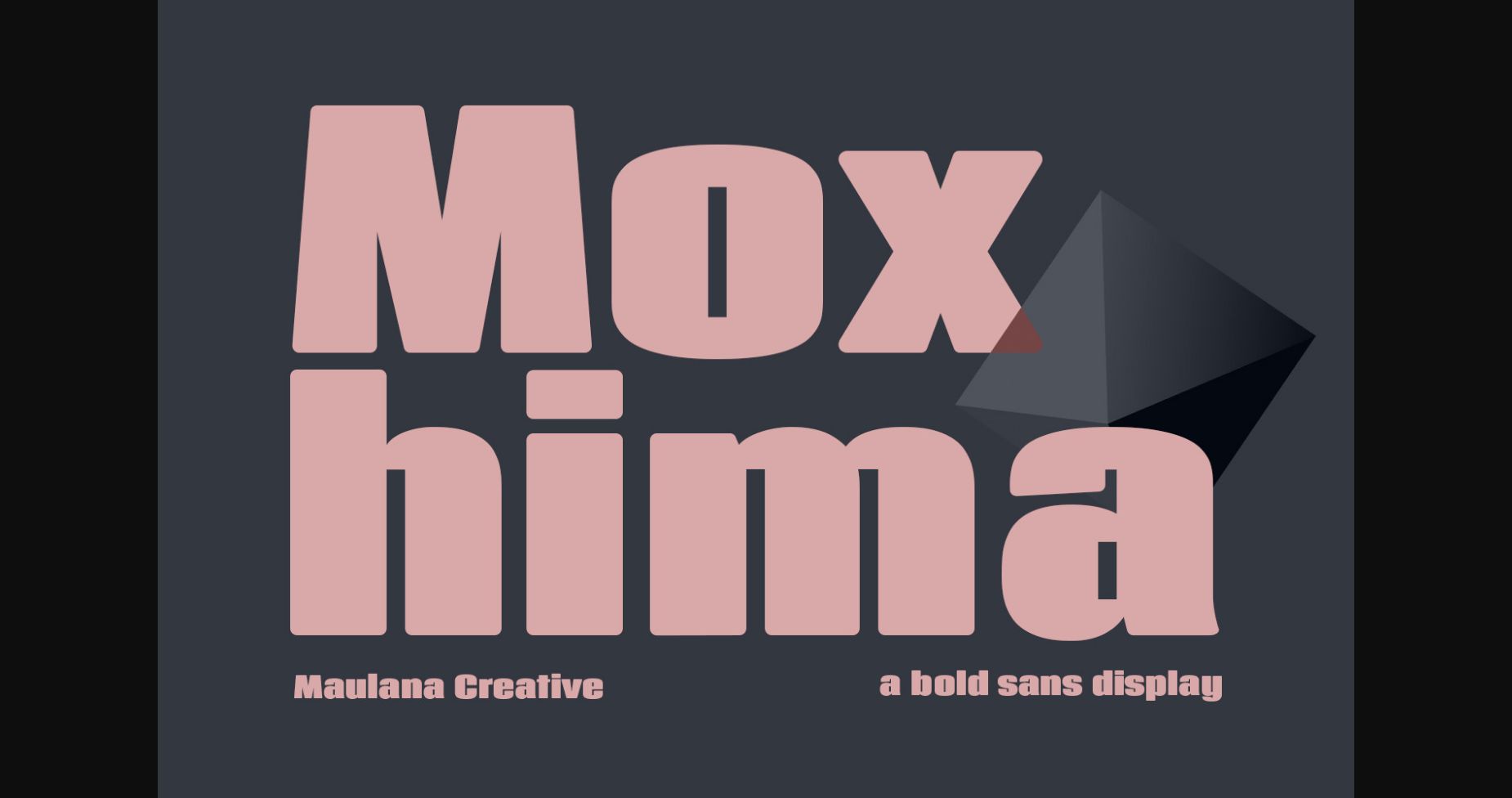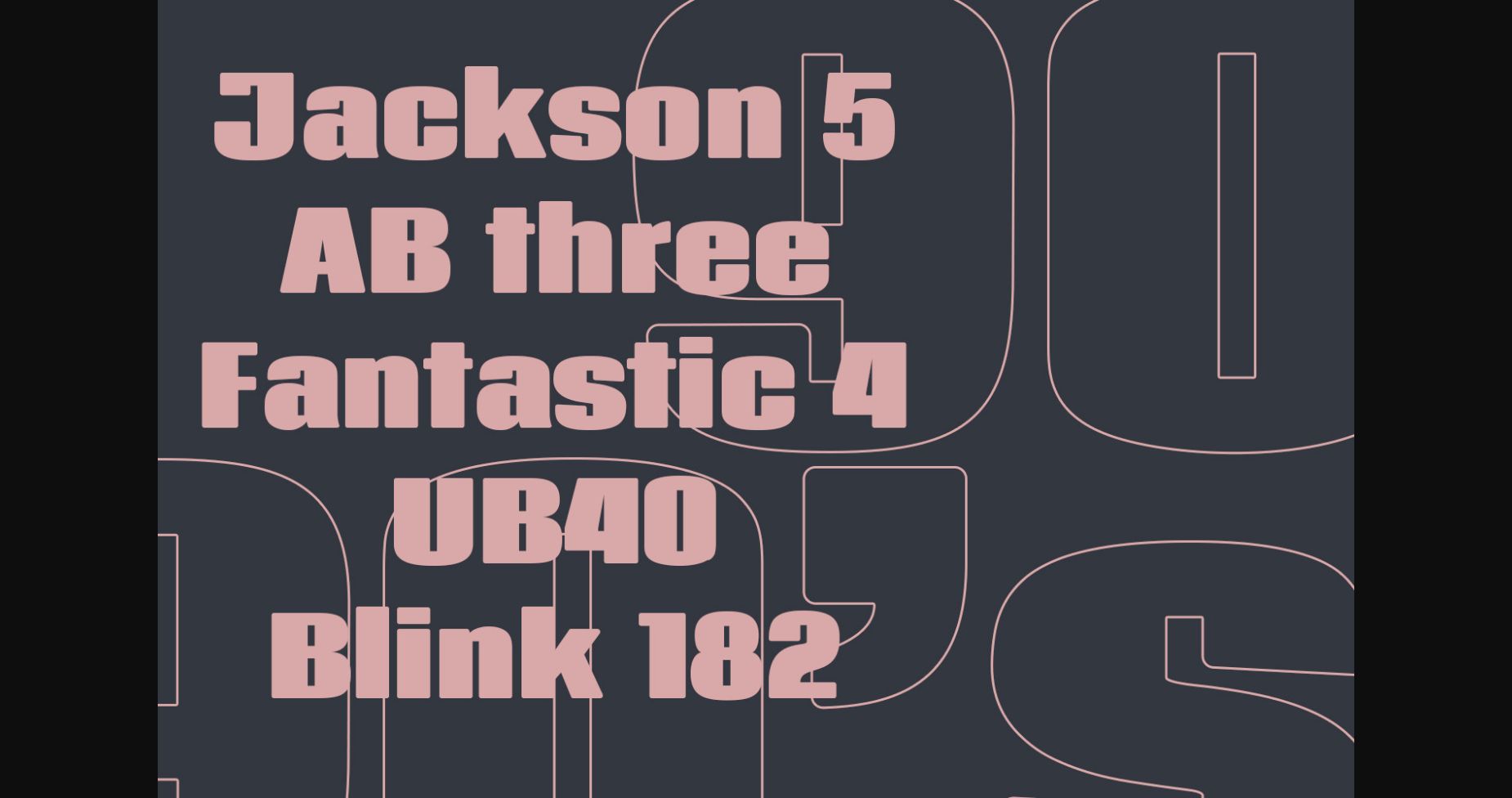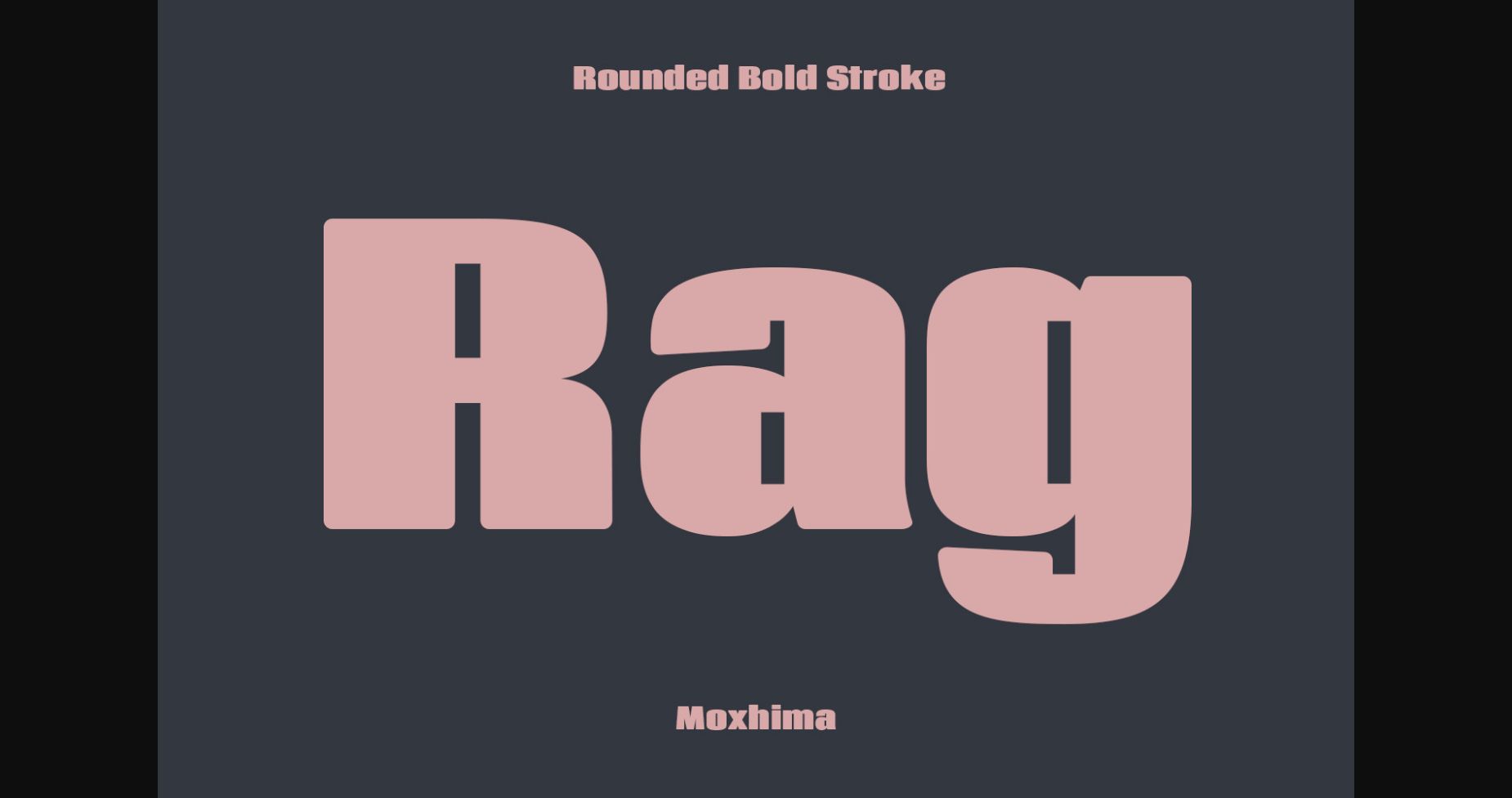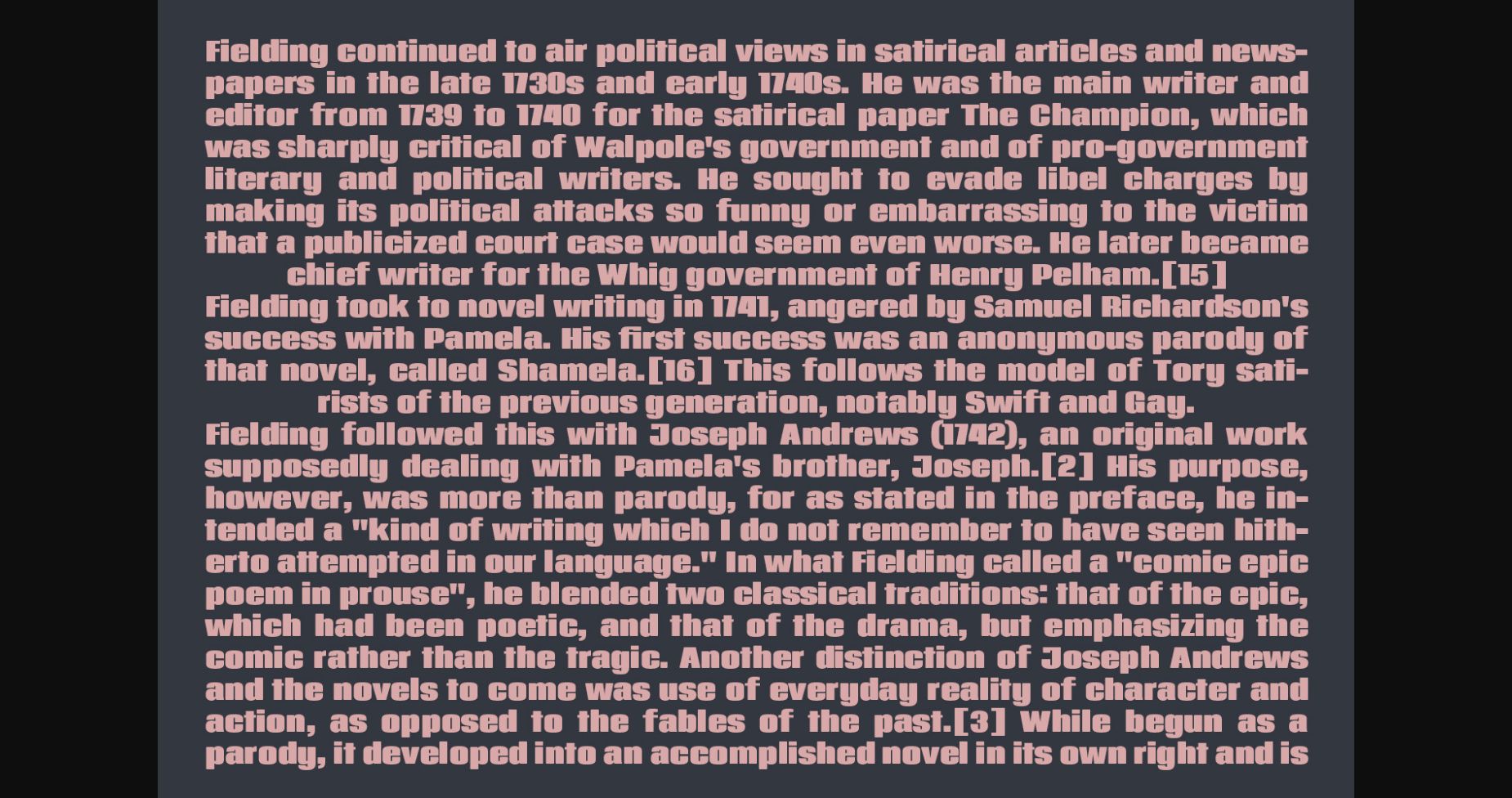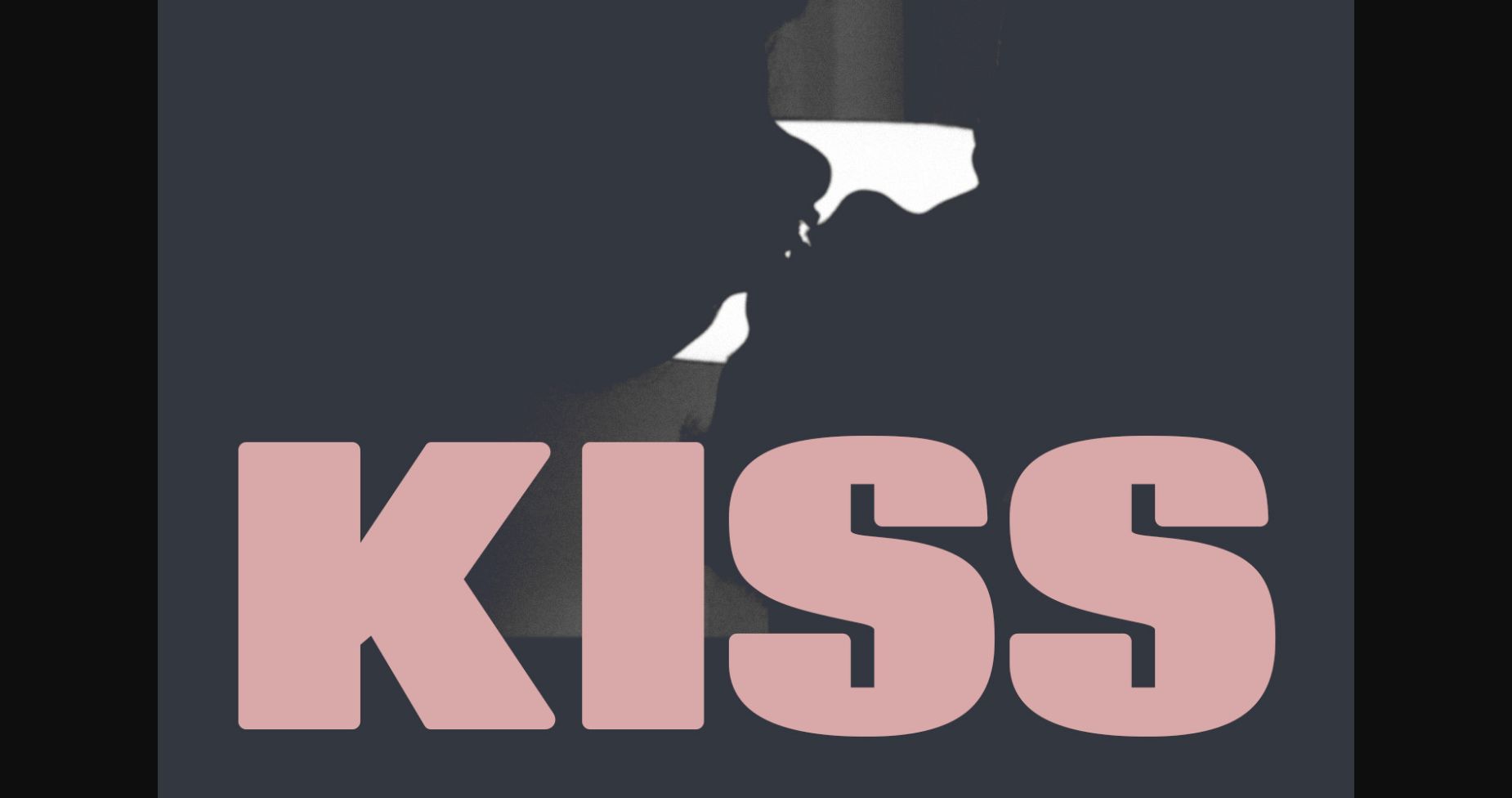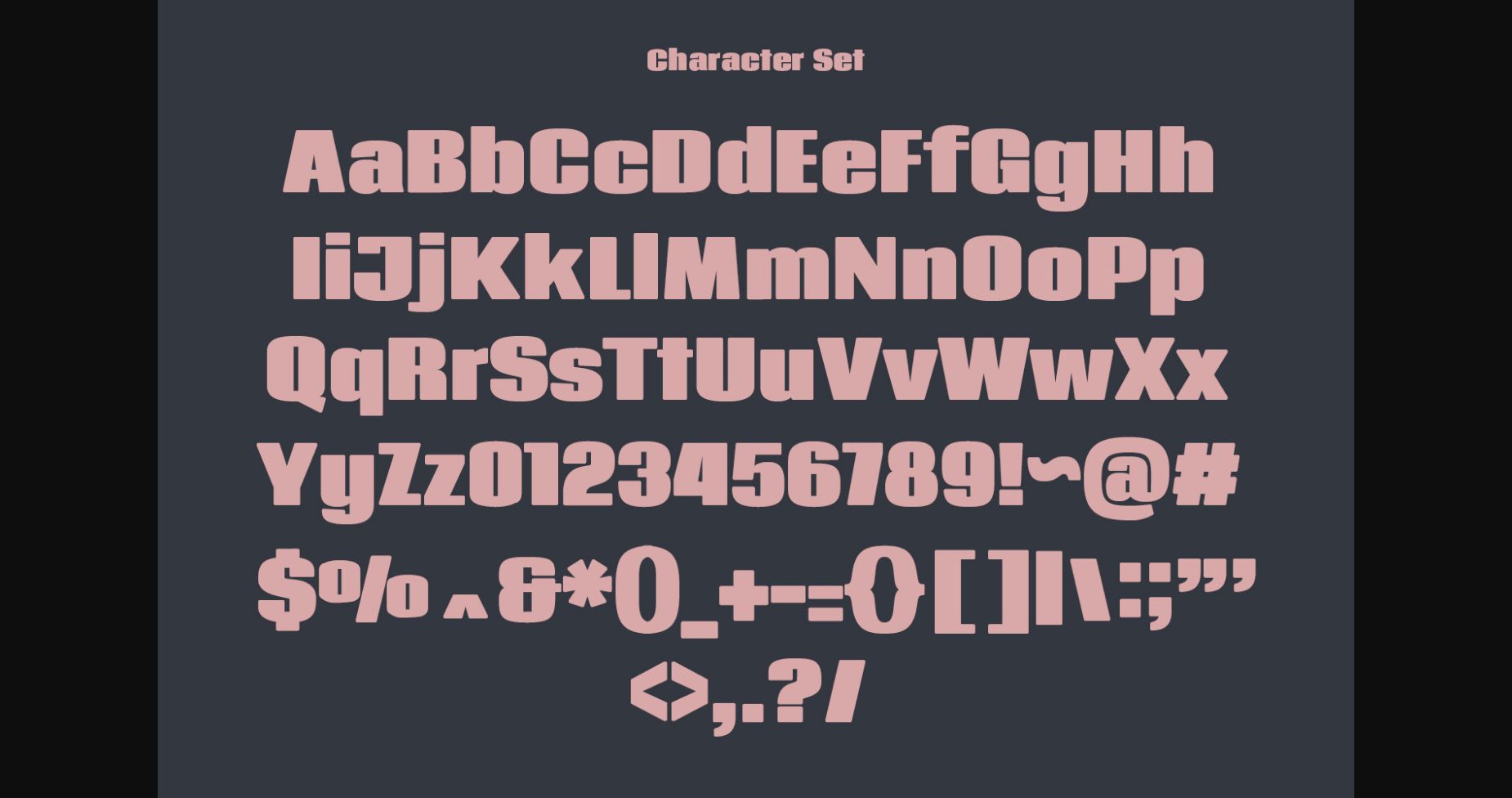
About Moxhima Font
Moxhima is a Classic sans-serif display font. Bold strokes, fun character with a bit of ligature and alternates. This font is good for logo design, Social media, Movie Titles, Books Titles, short text even long text letters, and is good for your secondary text font with script or serif. Make a stunning work with Moxhima font.